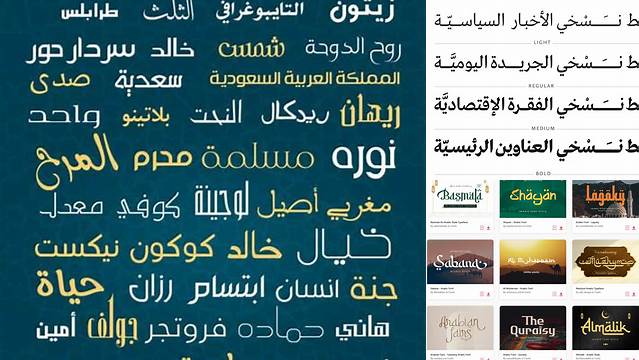
Free Arabic Fonts: Download Your Favorites
Are you on the hunt for the best Arabic font free download ZIP to jazz up your projects? Well, guys, you've landed in the right spot! Arabic fonts are super cool because they bring a unique flair to anything you're working on, whether it's a website, a graphic design, or just a personal document. Finding the right font can feel like searching for a needle in a haystack, but don't worry, I'm here to break it down for you. We'll explore where to snag these fonts, what to look for, and how to make sure they fit your needs perfectly. This guide is all about helping you find the best Arabic font free download ZIP options, so you can add that special touch to your designs. Let's get started!
Why Arabic Fonts Are Awesome
Arabic fonts are more than just letters; they're art. They carry so much cultural significance and beauty. Imagine the impact when you use a stunning Arabic font. It's like adding a splash of vibrant color to a black-and-white world. These fonts can completely transform how your message is perceived. They add a layer of sophistication and elegance that's hard to match. Whether you're designing a logo, a social media post, or a formal invitation, an Arabic font can make your work stand out. They're incredibly versatile, fitting well in both modern and traditional designs. Choosing the right font isn't just about aesthetics; it's about conveying your message effectively and connecting with your audience on a deeper level. The best Arabic font free download ZIP can open up a world of creative possibilities, helping you express your unique style.
When you're looking at Arabic fonts, you'll notice a huge variety. Some are elegant and flowing, perfect for invitations or poetry. Others are bold and modern, ideal for headlines and logos. The beauty of Arabic calligraphy is that it offers so much diversity. Each font has its own personality, so you can find one that matches the tone of your project. And, let's be honest, who doesn't love adding a touch of exotic flair to their designs? Arabic fonts can add that extra something, making your work more memorable and visually appealing. So, when you're thinking about your next project, consider the magic of Arabic fonts. It might be the perfect way to bring your vision to life. With the best Arabic font free download ZIP, you can get started right away without spending a dime.
Where to Find the Best Arabic Font Free Download ZIP Files
What to Look for in an Arabic Font
Okay, so you know where to look for fonts, but what makes a good Arabic font? Knowing what to look for is crucial to ensure your design looks professional and is easy to read. Here are some key things to keep in mind when browsing for the best Arabic font free download ZIP options.
- Readability: First and foremost, the font needs to be readable. This is especially important for Arabic fonts since some scripts can be quite intricate. Make sure the font is clear and easy to understand at different sizes. A font that looks amazing but is hard to read is useless. Test it out by typing some sample text to see how it looks.
- Style and Aesthetics: Consider the overall style of the font. Does it match the tone of your project? Do you need something modern and sleek, or more traditional and ornate? There are many different styles of Arabic calligraphy, from the flowing Naskh to the angular Kufi. Choose a style that complements your design. The best Arabic font free download ZIP is the one that matches the style that you want.
- Character Set: Does the font include all the characters you need? Make sure the font supports the characters and symbols you plan to use. Some fonts may be missing certain glyphs, which can lead to issues. Check for diacritics (the small marks above and below letters) if you need them.